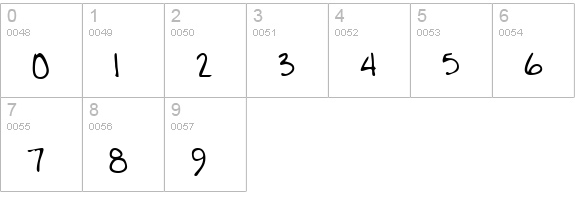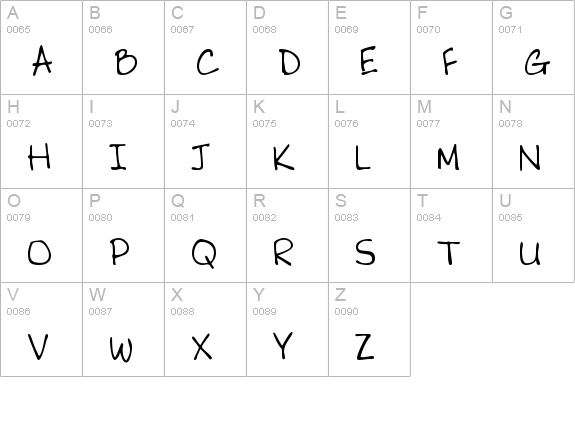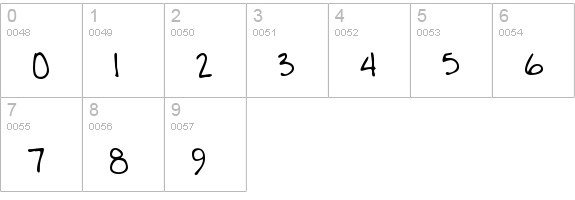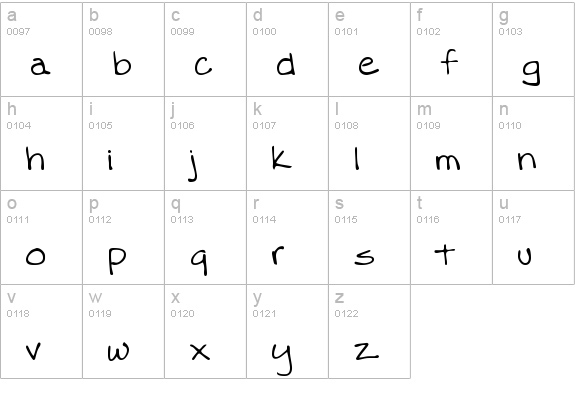
FarrahsHand Regular Font Details
FarrahsHand Regular is the standard, neutral variant in the FarrahsHand typeface family \xE2\x80\x94 well suited to general body text, paragraphs, and standard typographic work.
FarrahsHand Regular font exudes a charming and elegant handwritten style, perfect for adding a personal touch to any design project. With its flowing strokes and delicate curves, this versatile font is ideal for a wide range of applications, from invitations and greeting cards to branding and packaging. What sets FarrahsHand Regular font apart is not only its beauty but also its accessibility. This stunning font is available for free download at FontsMarket.com, making it easy for designers and creatives to incorporate it into their work without any cost. Embrace the beauty and versatility of FarrahsHand Regular font today and elevate your designs with its unique flair.